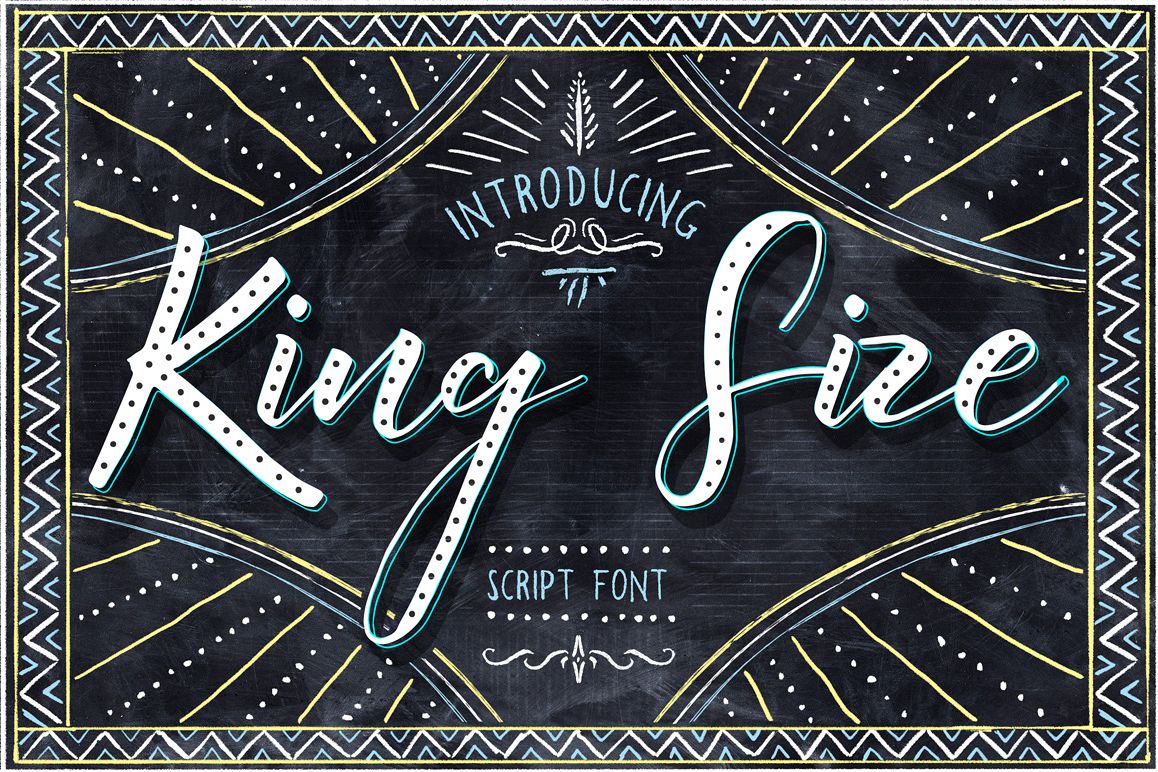
King Size Font
KingSize-Shadow
KingSize-Script
KingSize-Dots
King Size is a hand lettered font with multilingual support. Is ideal for headers, restaurant menus, greeting cards, invitations, weddings, headers and many more.
This font comes with a complete set of lowercase and uppercase letters, numbers, alternates, ligatures and multilingual support.
• King Size Script (.otf .ttf. woff) Upper and Lowercase with stylistic alternates, ligatures, numerals, punctuation glyphs and multilingual support.